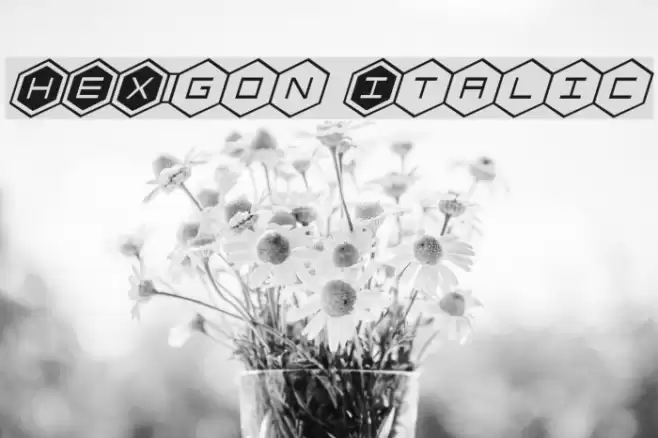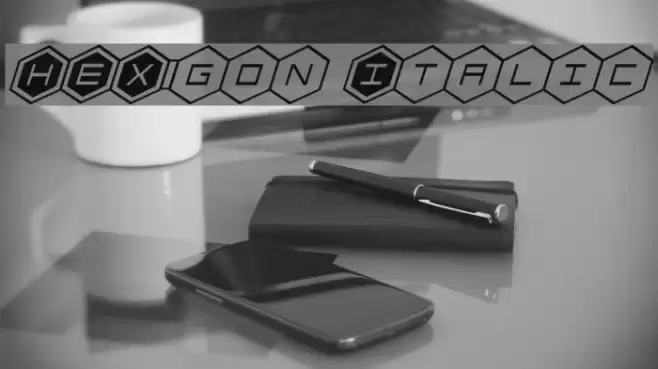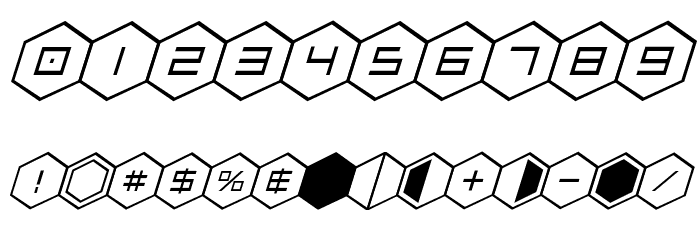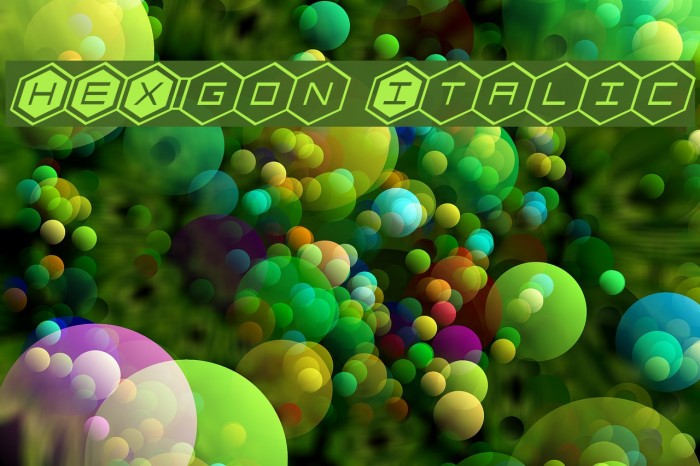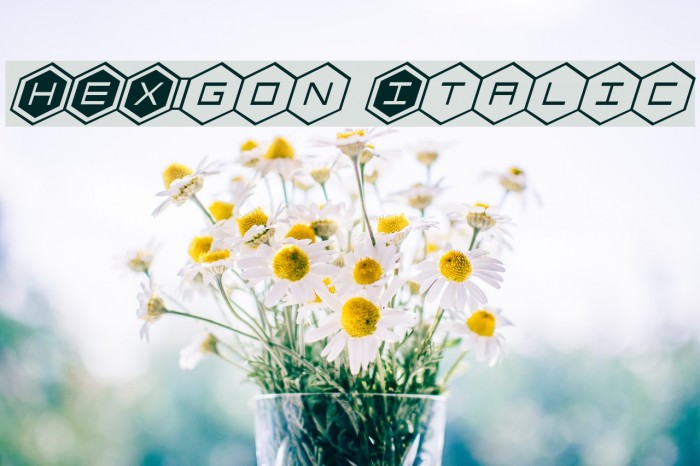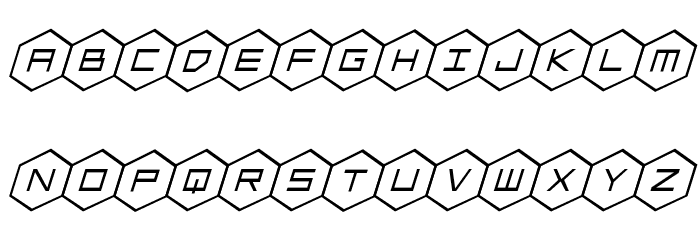
HEX:gon Italic Font
HEX:gon Italic Description
This font features a unique and bold design with each character enclosed within a hexagonal shape, creating a striking geometric appearance. The uppercase and lowercase letters, as well as numbers and special characters, are all presented in a consistent italicized style, enhancing the dynamic and modern feel. The use of hexagons adds a distinctive touch, making it ideal for projects that require a futuristic or tech-inspired aesthetic. The characters are well-defined with a medium contrast in stroke thickness, ensuring readability while maintaining a decorative flair.
A bold, geometric font with italicized characters enclosed in hexagons, perfect for modern designs from Uncategorized fonts.
- Proposed Projects: Ideal for tech-themed branding, futuristic posters, video game graphics, and innovative product packaging.